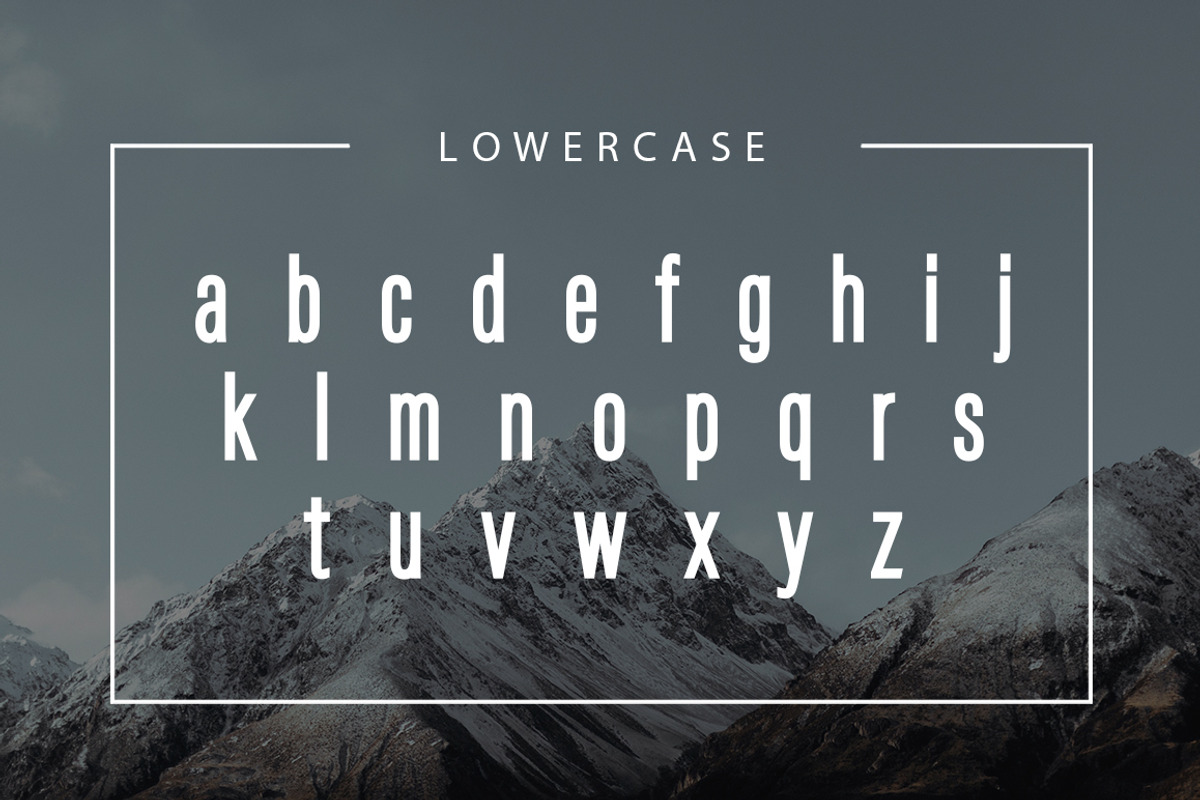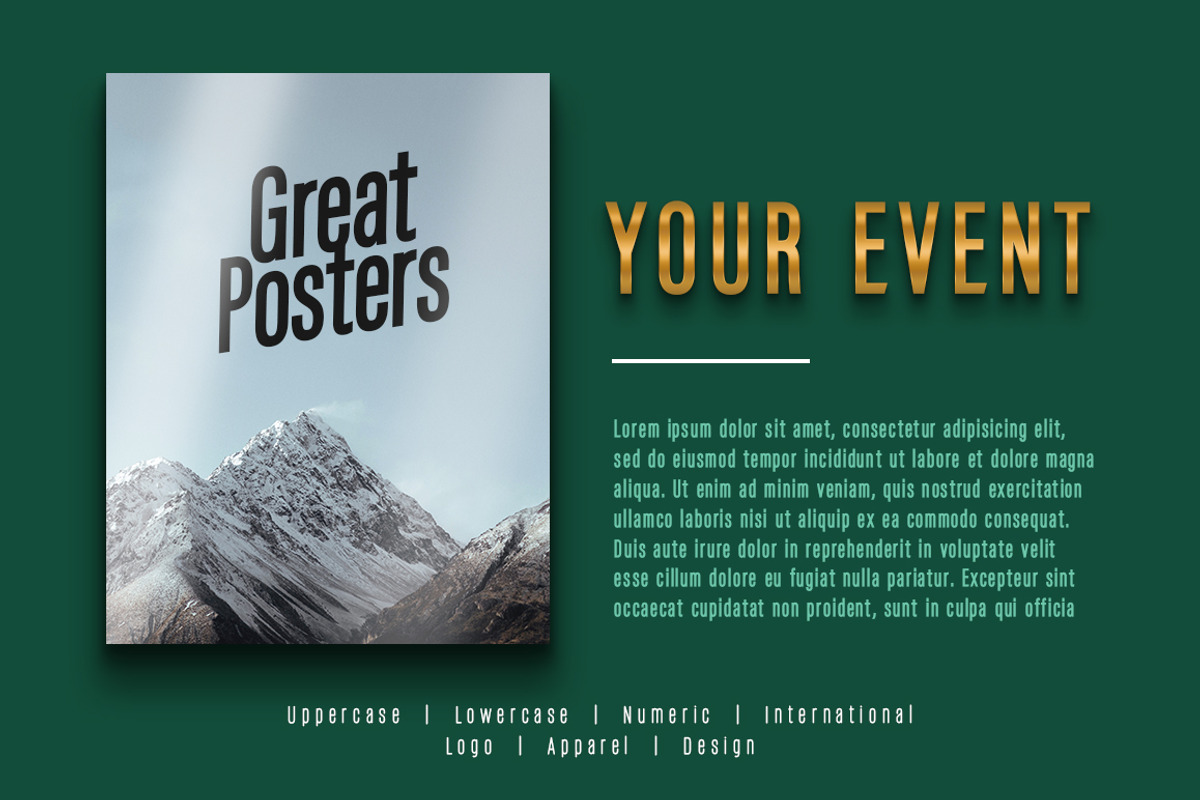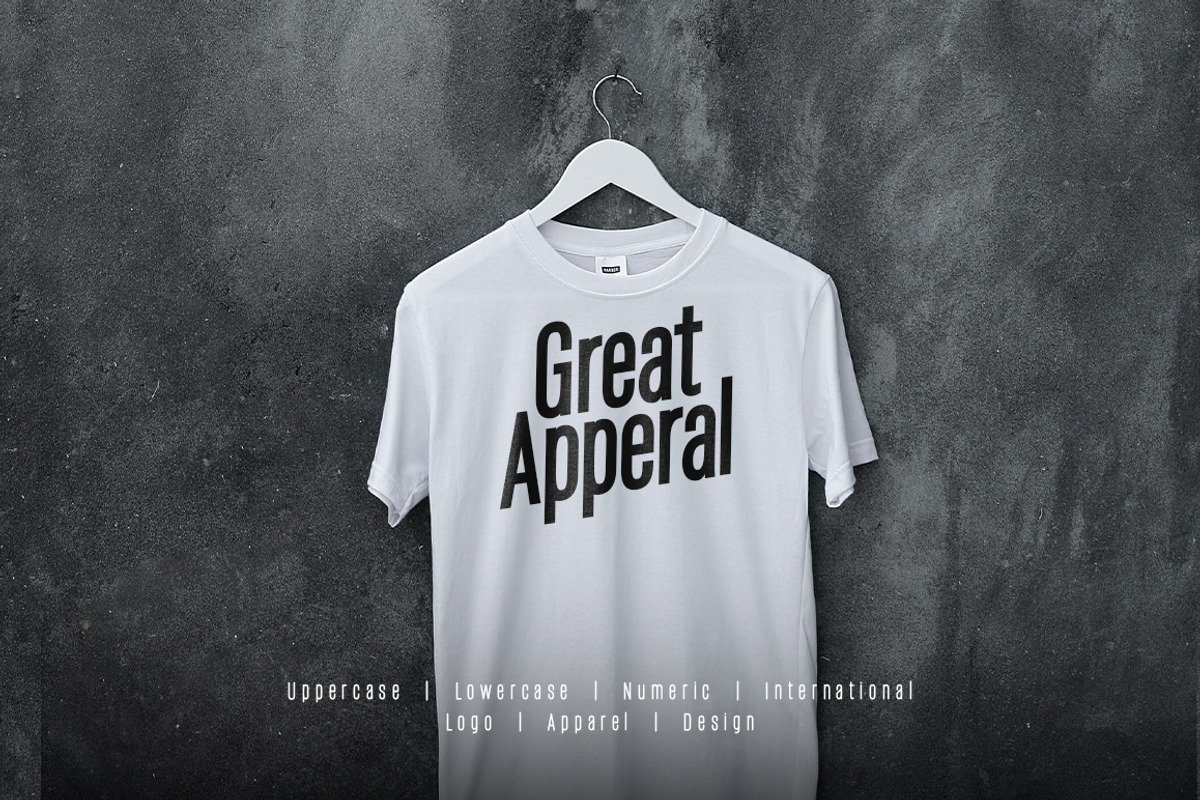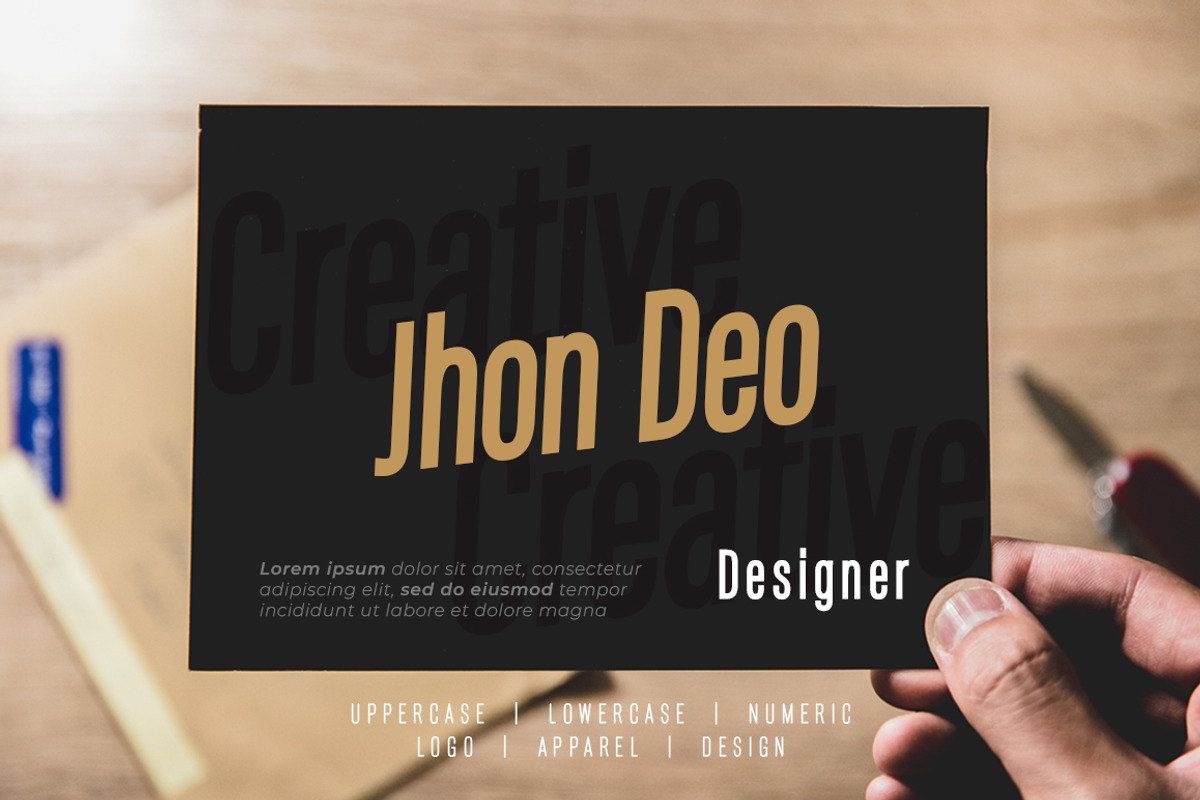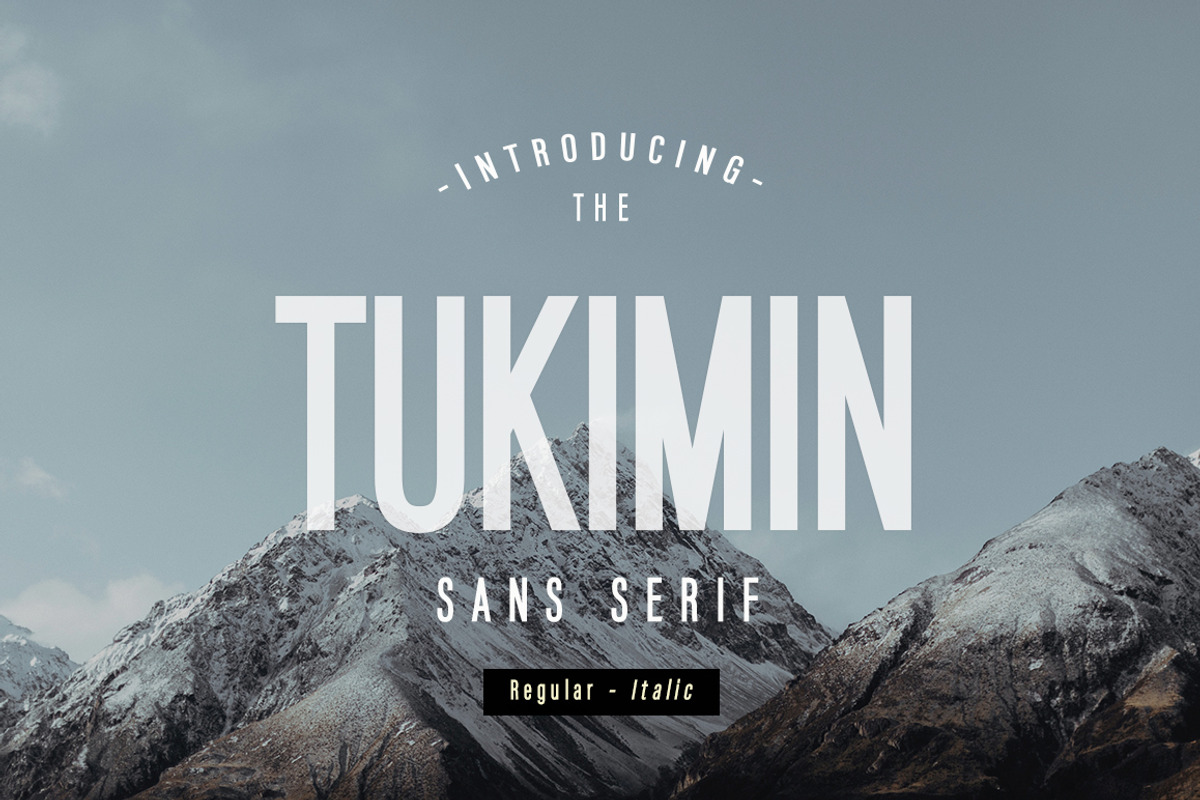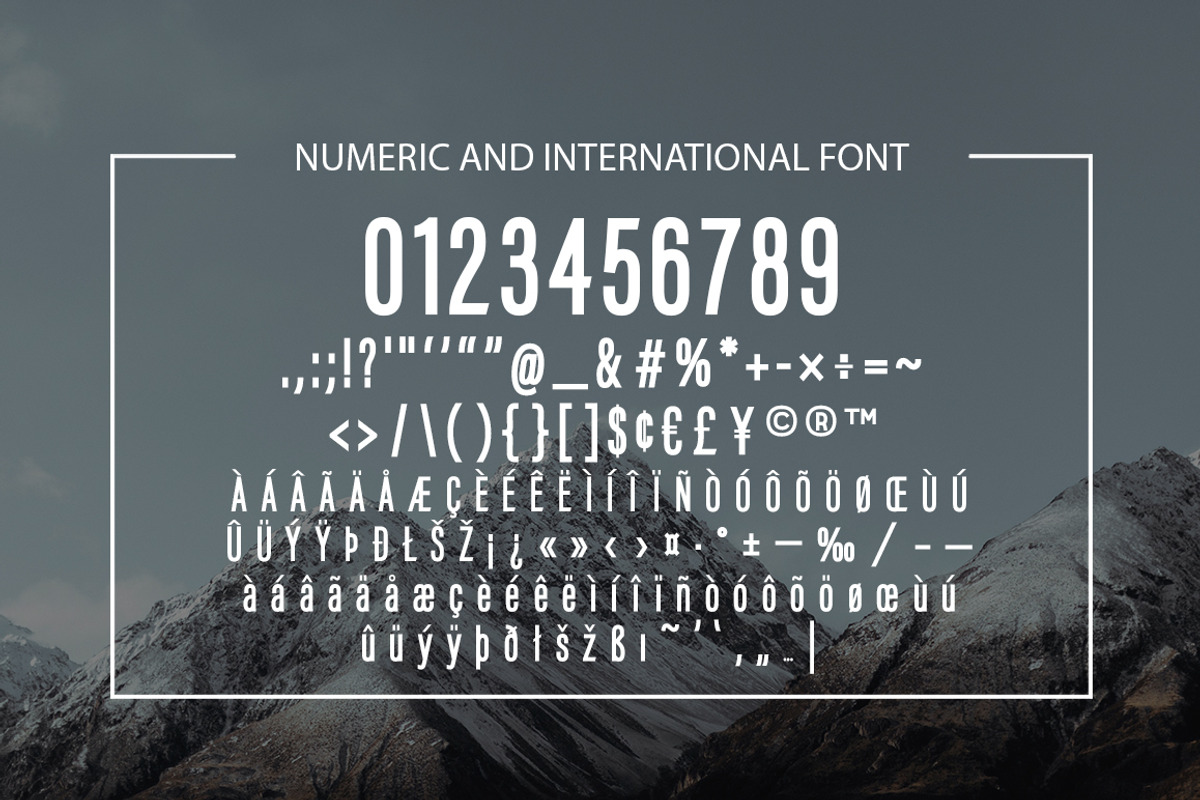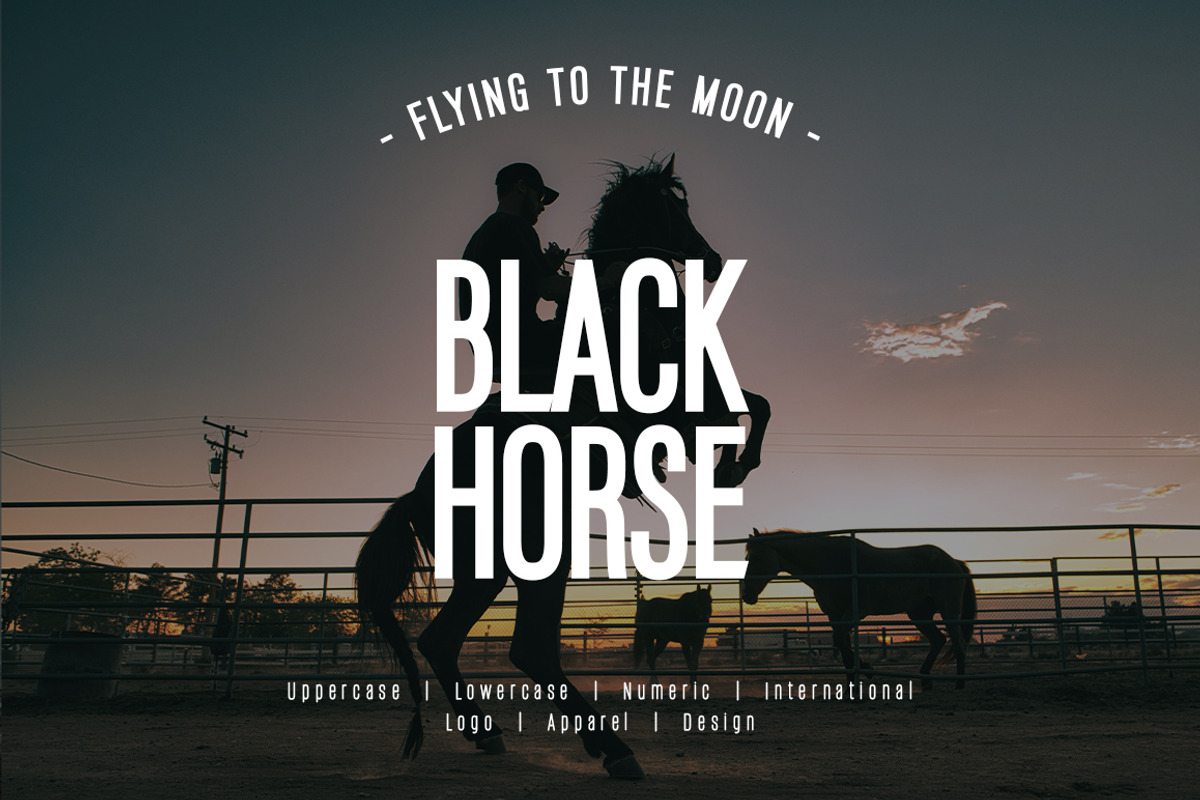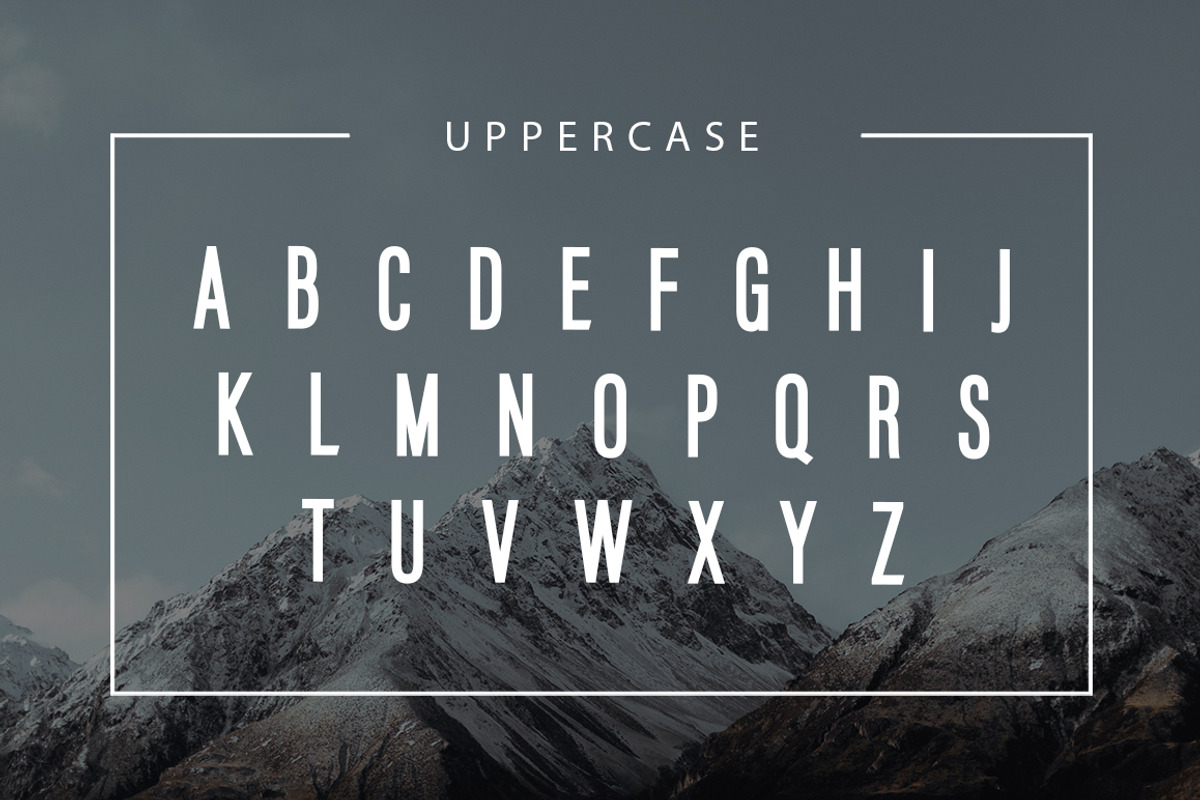
Tukimin Bold Font
Tukimin Font very suitable for poster, for logo, music cover, clothing, and many many cool design projects. Tukimin Font is uppercase and lowercas. Numeric and international font. Regular and Italic font.